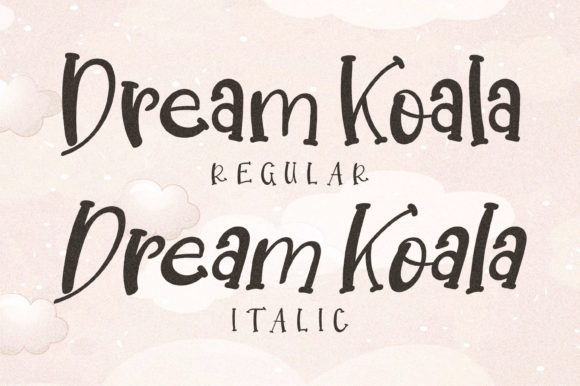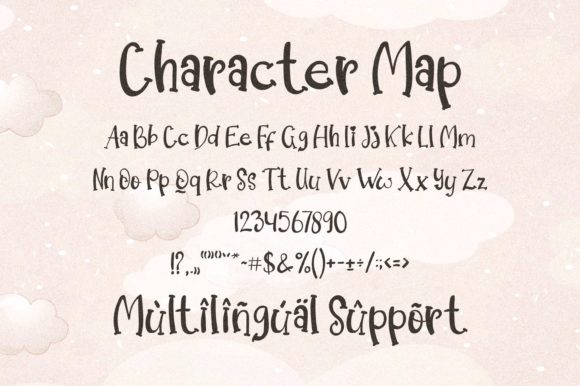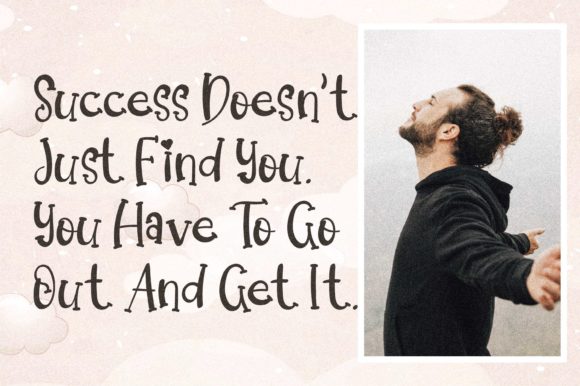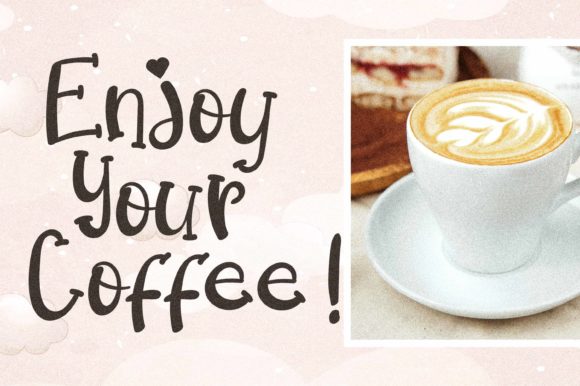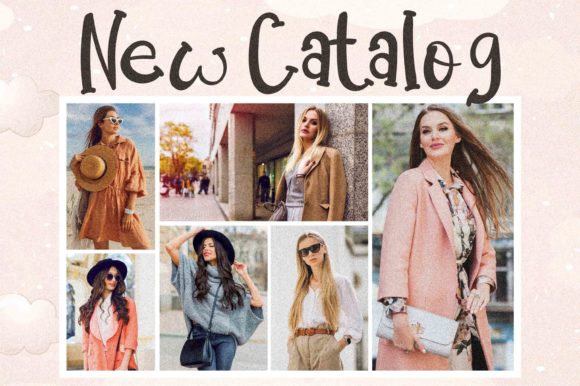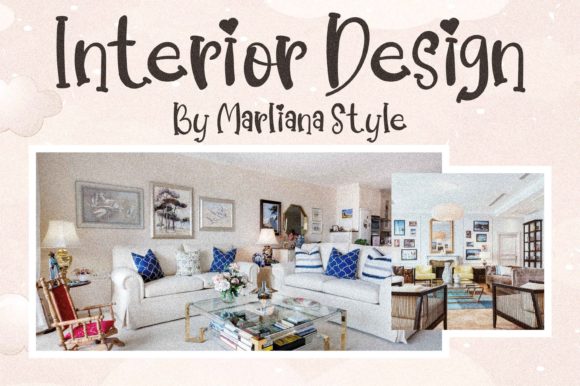
Introduction to Dream Koala Font
Have you ever been working on a creative project and stumbled upon the perfect font that elevates your entire design? For designers, finding the right font can be the difference between a good project and a great one. It’s that moment when everything comes together – the colors, the shapes, and the typography – and you know you’ve hit the mark. That’s exactly what the Dream Koala Font is all about.
This quirky and friendly handwritten font is a true gem, masterfully designed to bring each of your creative ideas to the highest level. With its unique charm and high-quality design, the Dream Koala Font is a valuable resource for any designer looking to add a personal touch to their work.
Key Features of Dream Koala Font
- High-quality, hand-drawn design perfect for creative projects
- Comes with a transparent background for easy customization
- Supports a wide range of languages, including Latin, Cyrillic, and Greek
- Unique, whimsical style ideal for children’s books, nursery decor, and more
Honest Review: Dream Koala Font
I recently had the chance to work with the Dream Koala Font, and I must say it’s been a delightful experience. As a designer, I appreciate high-quality design resources that can elevate my creative project to the next level.
The Dream Koala Font is a beautiful, hand-drawn font that’s perfect for any project that requires a touch of whimsy and personality. The font comes with a transparent background, which makes it easy to customize and integrate into your design.
- High-quality design with a unique, hand-drawn feel
- Perfect for creative projects that require a touch of personality
- May not be suitable for formal or professional projects due to its playful nature
- Some users may find the font’s hand-drawn feel too casual or informal
Overall, I’m thoroughly impressed with the Dream Koala Font. It’s a fantastic design resource that’s perfect for creative projects and designers looking to add a touch of personality to their work. With its high-quality design and transparent background, it’s a must-have for any designer’s toolkit.
Introduction to Dream Koala Font
The Dream Koala Font is a high-quality design resource perfect for creative projects. This free download offers a unique and playful style that can add a touch of whimsy to your designs.
Use the Dream Koala Font on a transparent background to create a unique and eye-catching design. Experiment with different font sizes and styles to add depth and visual interest to your design.
Common Use Cases for Dream Koala Font
The Dream Koala Font is perfect for designing invitations, social media graphics, and marketing materials. Its playful style makes it ideal for creative projects such as children’s books, educational materials, and more.